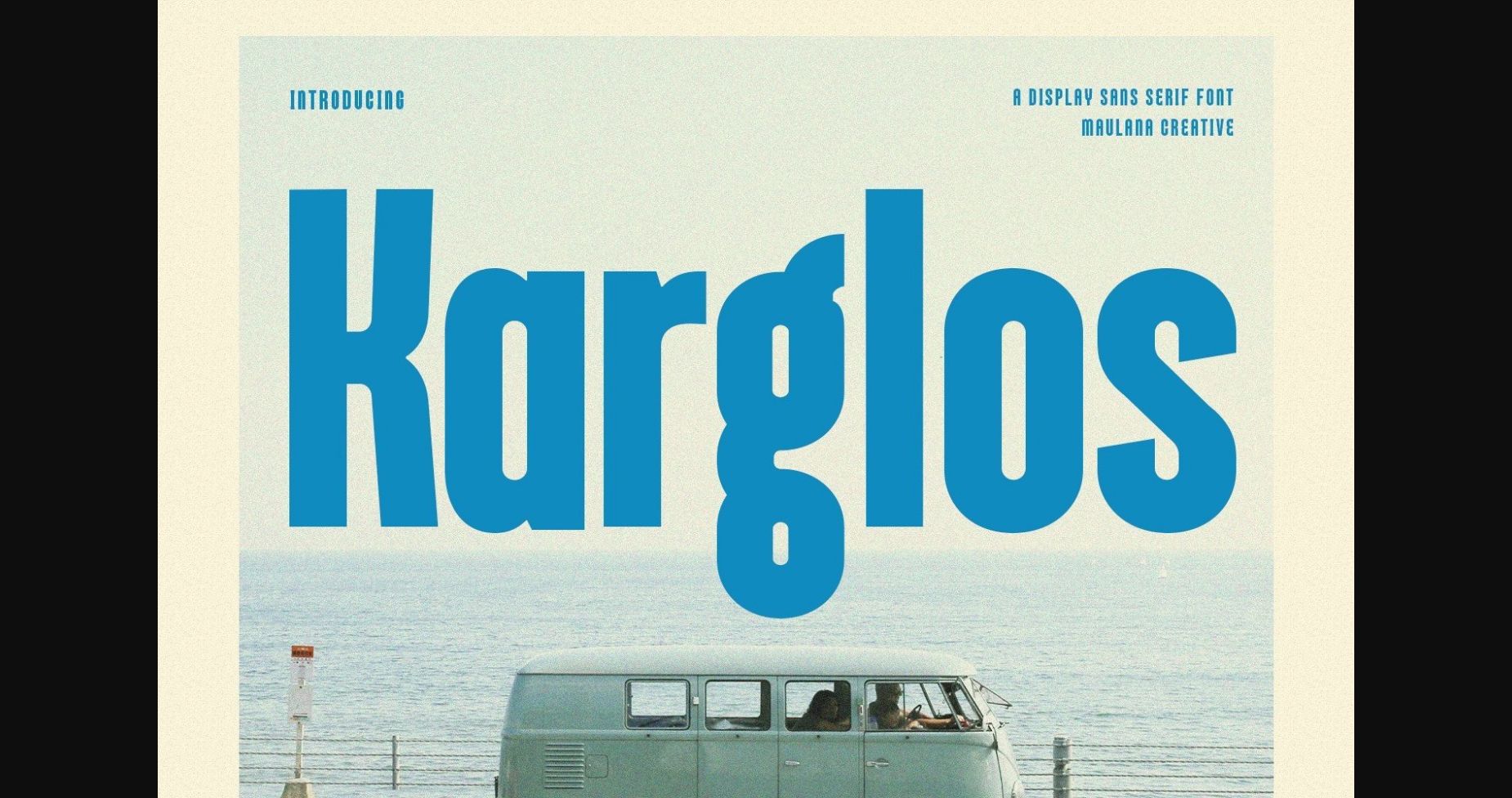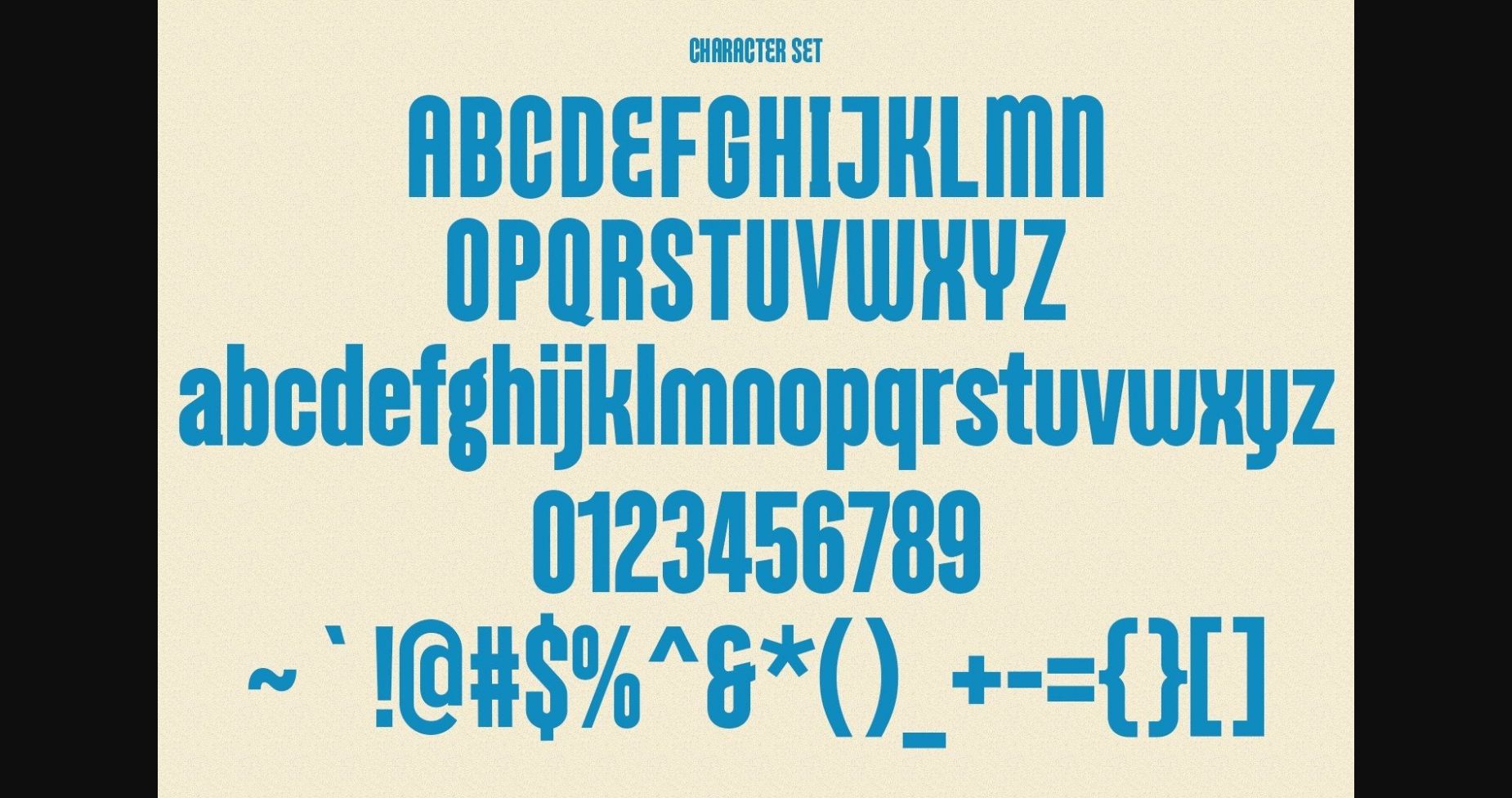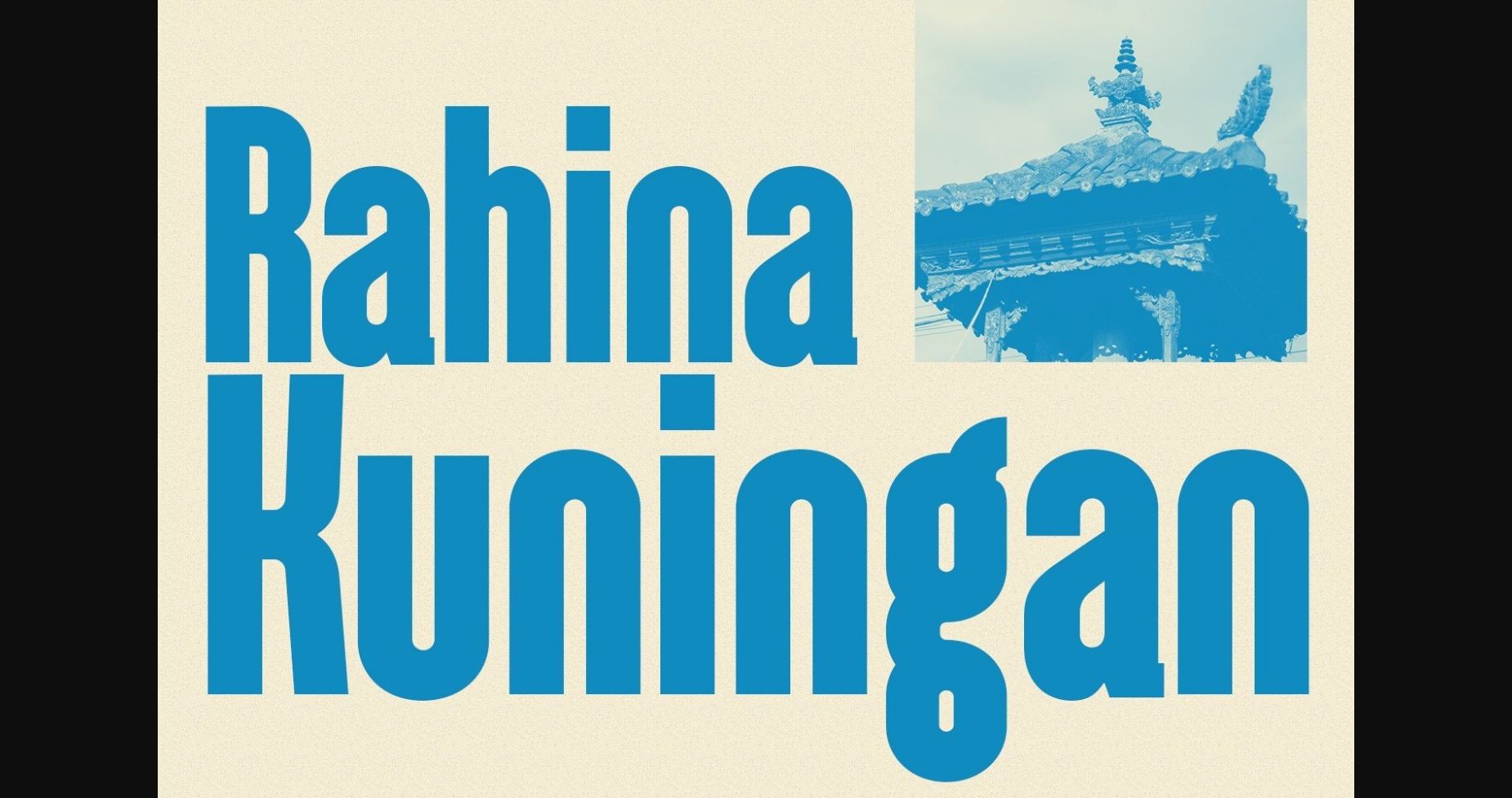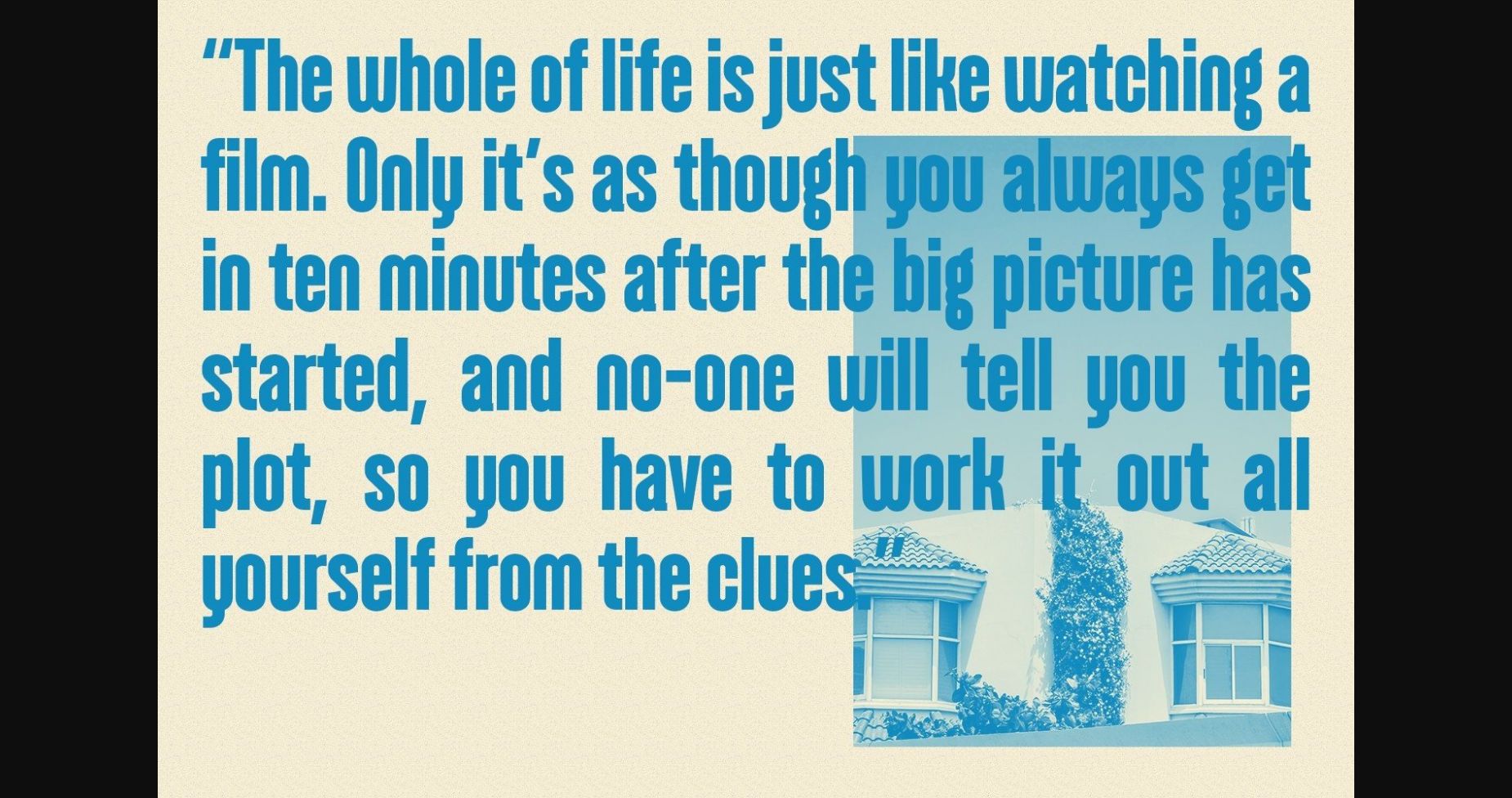
About Karglos Font
Karglos is a condensed sans serif font. With a bold strong stroke, fun character with a bit of ligature and alternates. This font is good for logo design, Social media, Movie Titles, Books Titles, short text even long text letters, and good for your secondary text font with sans or serif. Make stunning work with Karglos font.